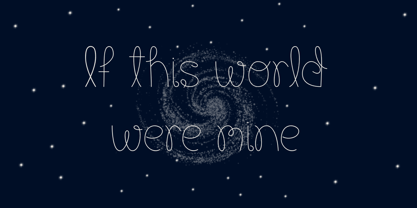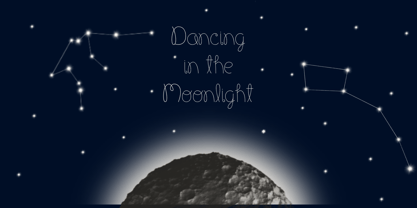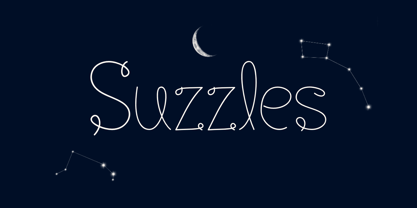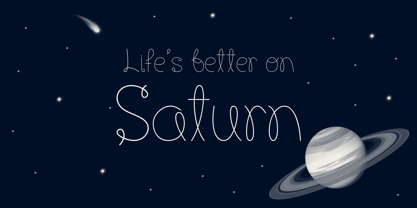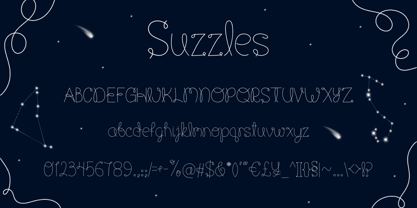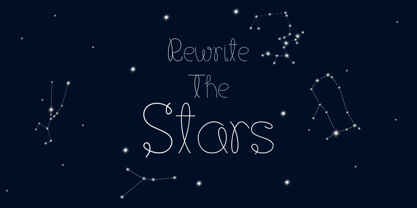
Suzzles
by Khaiuns
The Suzzles Font Family was designed by Khair Unnas and published by Khaiuns. Suzzles contains 1 styles. More about this family
Suzzles is a delightful handwritten font that brings an air of whimsy and elegance to any design. With its charming curves and intricate details, Suzzles is perfect for adding a personal touch to invitations, branding, packaging, and more. Whether you're working on a creative project or simply looking to enhance your typography collection, Suzzles offers a versatile and stylish solution.
Designed with precision and care, Suzzles includes a wide range of glyphs to support various languages and accents. Its smooth, flowing lines make it both playful and sophisticated, ensuring it stands out in any application. Explore the beauty of Suzzles and let its unique style inspire your next creation!
• Suzzles Regular
• 231+ total glyphs
• Standard English characters
• Accented characters
Designers: Khair Unnas
Foundry: Khaiuns